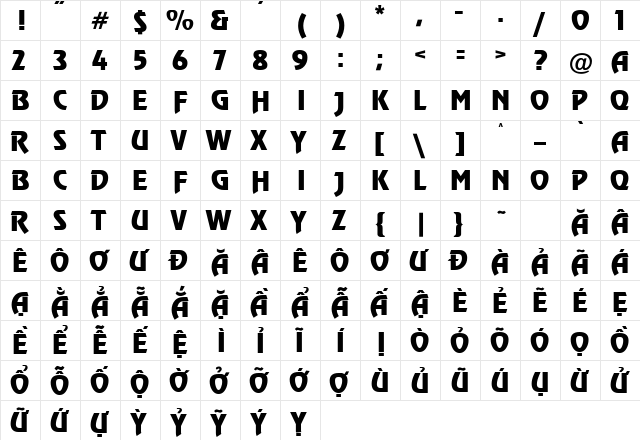
.VnRevueH Medium
Design Context for .VnRevueH Typeface
.VnRevueH is a composed and adaptable typeface that performs quietly and consistently across a wide range of design contexts.